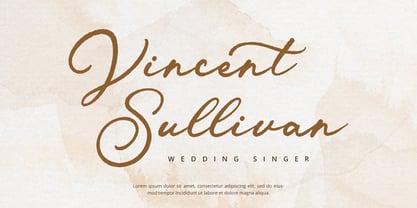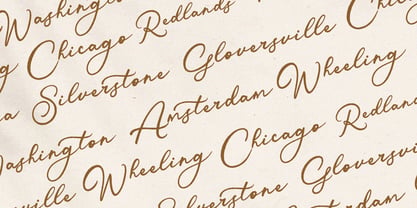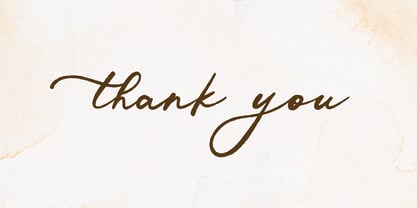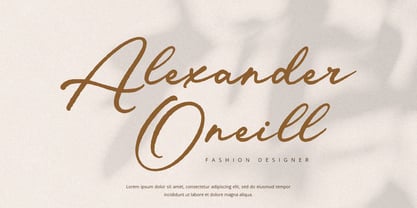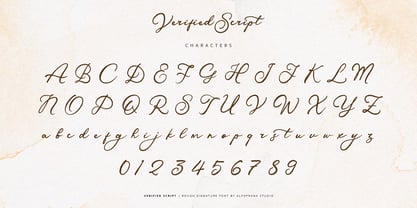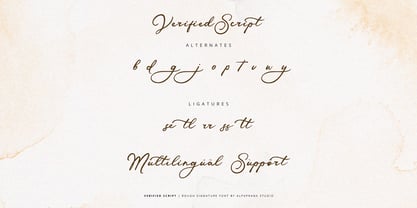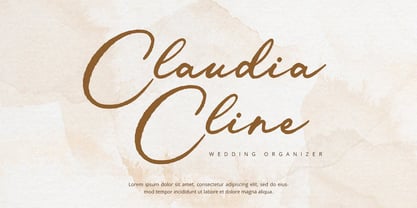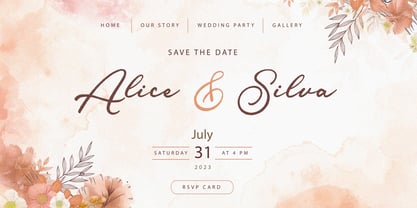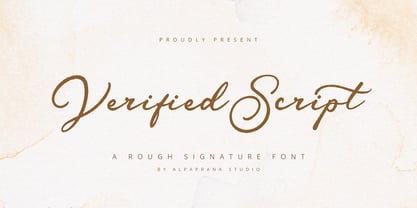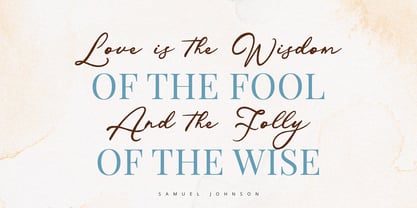
Verified Script
Verified Script is a rough script font with natural and clasic feels. It will be perfectly used for Branding, Logo Design, Lettering, Logotype, Clothing, Poster, magazine, packaging, posters, shopping bags, t-shirts, book covers, photography, special events and other design project. I hope you enjoy this font. If you have any questions please don't hesitate to drop me a message :) Best, Alpaprana